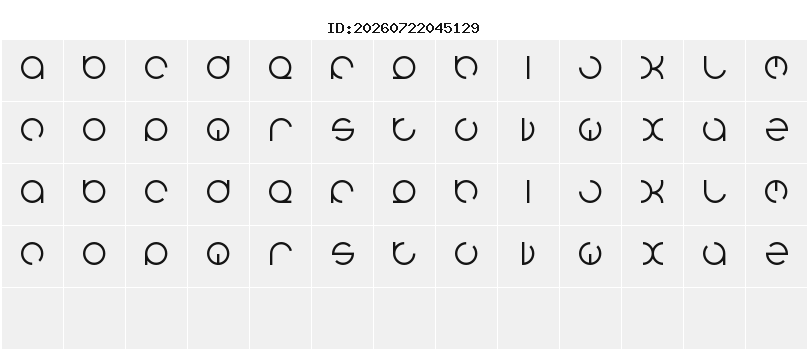
henderson Preview
• Font Name: henderson
• Font ID: henderson:Version 1.00
• Full Font Name: henderson
• Version: Version 1.00 March 2, 2011, initial release
• PostScript Name: henderson
About henderson.ttf
henderson.ttf is a modern, elegant sans-serif font designed for ultimate readability and visual harmony. Perfect for branding, headlines, web design, and print materials.